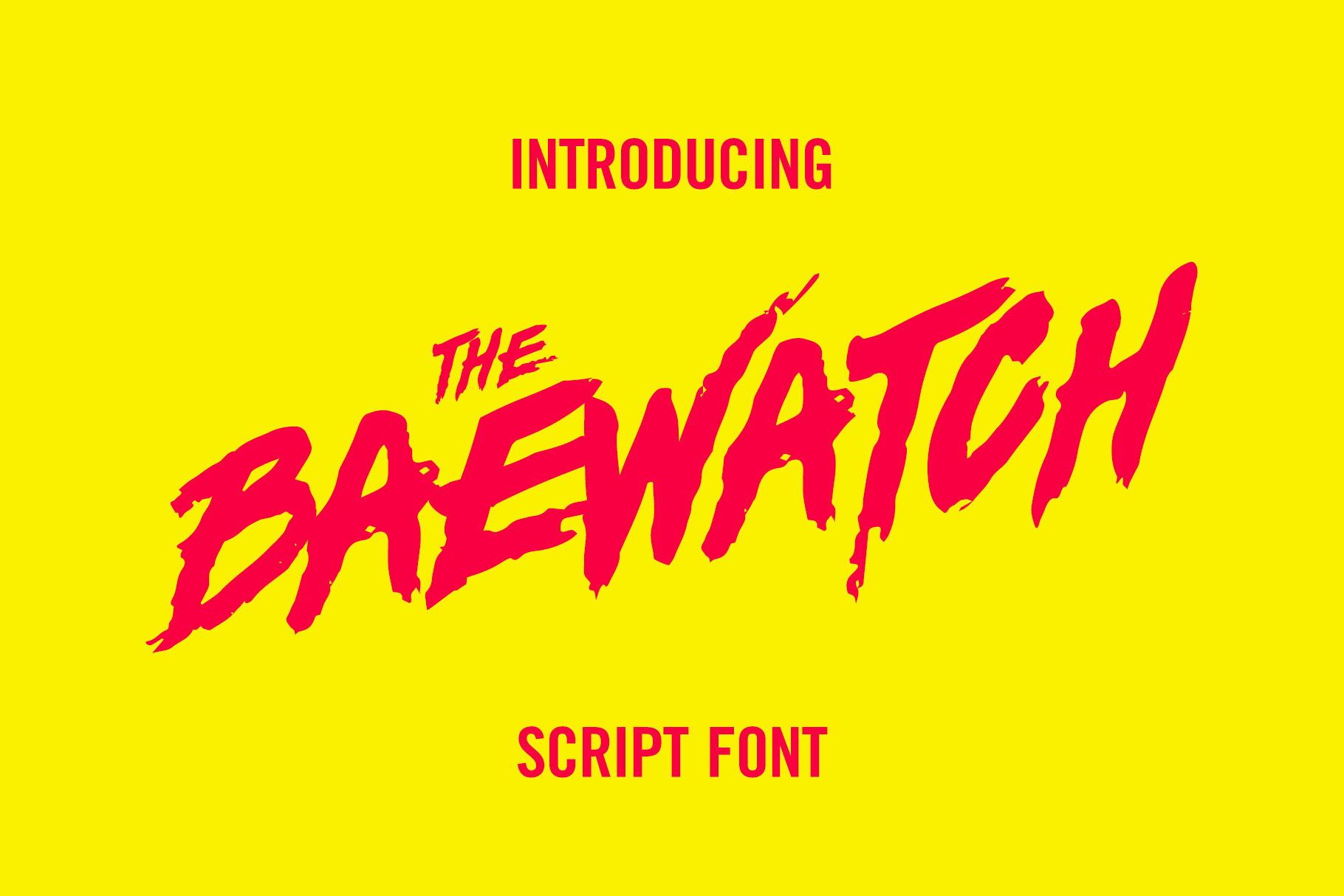
Baewatch Script Font
Baewatch is a custom brush script that’s inspired by the 90's TV series "Baywatch". Its great for any kind of display use from packaging to poster & logos to headlines. Baewatch has basic letterforms and a few alternates for more customized look.
Update 01/31/21 - Numbers added